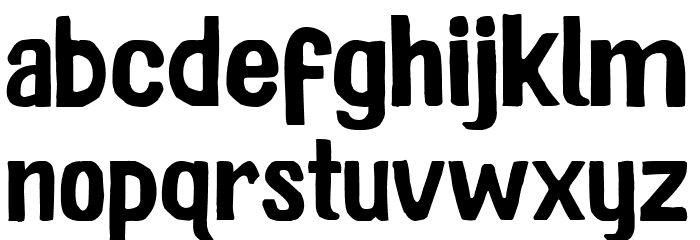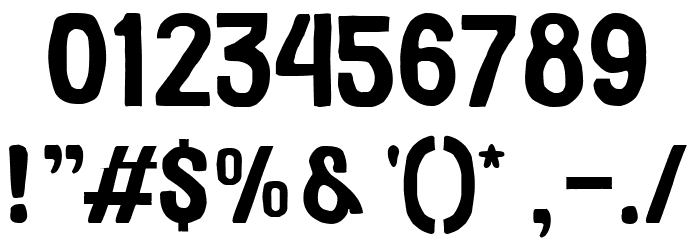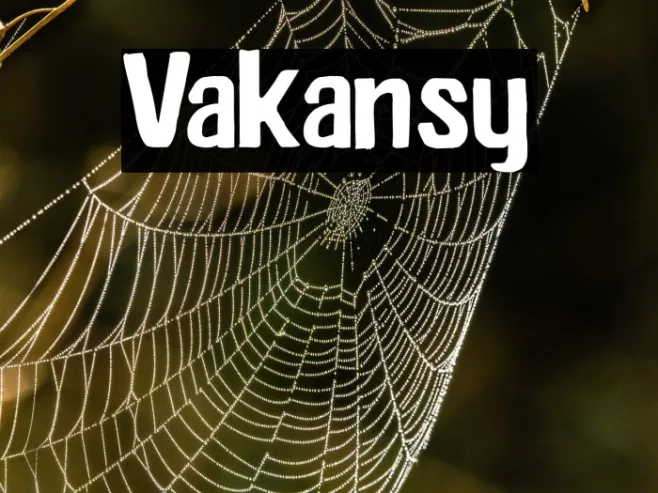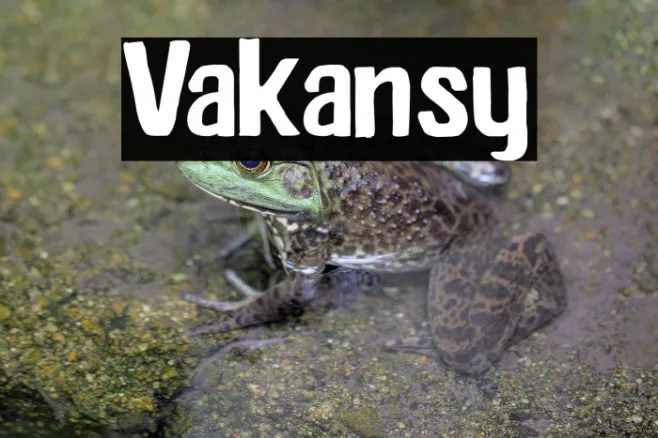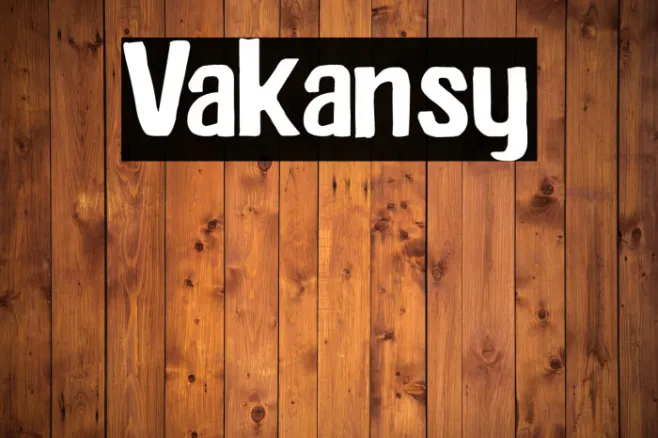
Vakansy Font
This font features a bold and playful style, characterized by its thick, rounded strokes and slightly irregular shapes. The uppercase letters are robust and commanding, while the lowercase letters maintain a friendly and approachable appearance. The numbers are consistent with the overall style, offering a cohesive look. Special characters are designed with the same boldness, ensuring they stand out. The font's hand-drawn aesthetic gives it a unique charm, making it suitable for creative and informal applications.
A bold, playful font with a hand-drawn aesthetic.
- Proposed Projects: Ideal for children's books, playful branding, posters, and creative projects.
- Overall Style: Playful, Hand-drawn